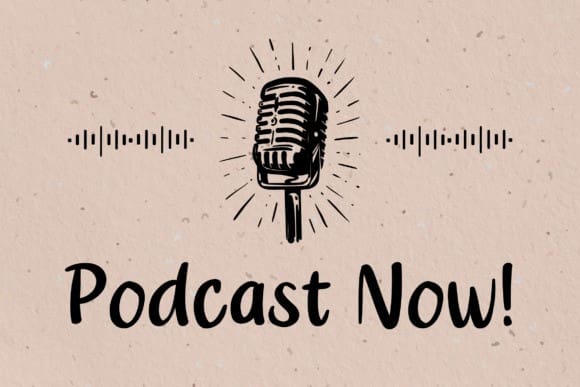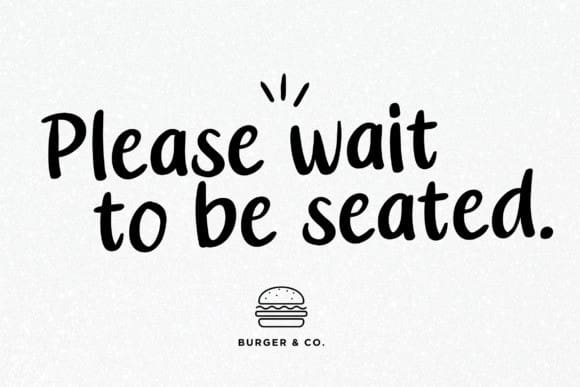
Zus Latte Font
Zus Latte Font a simple handwriting Font. Nice to use this Font in an aesthetic Poster. It will add elegance and class to any of your design projects.